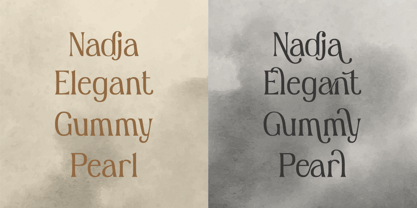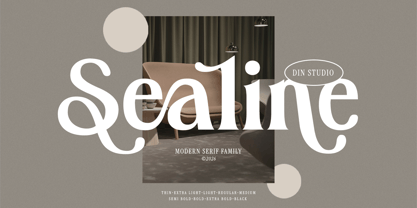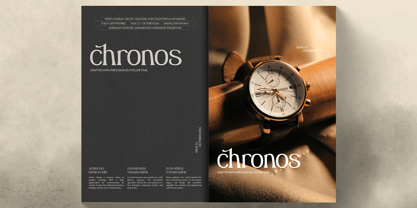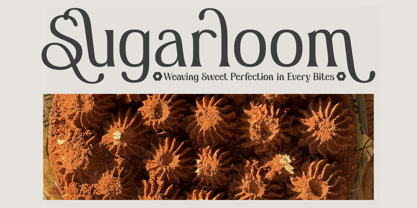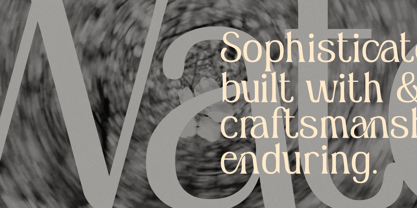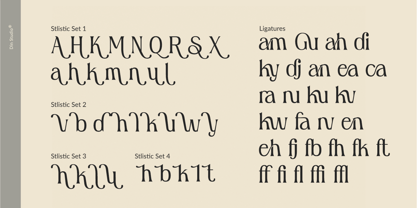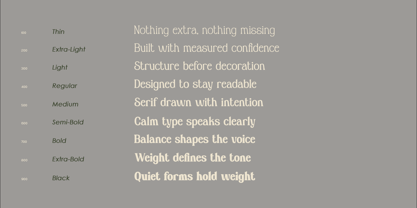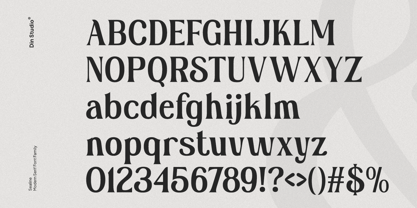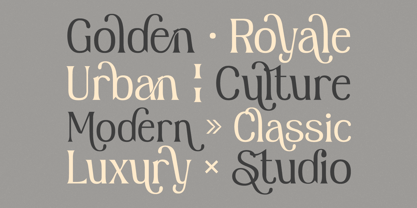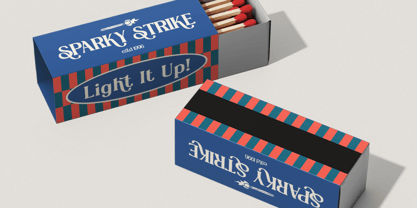
Sealine
Sealine is a modern serif font family that seamlessly blends contemporary sophistication with timeless typographic elegance. With its clean serif structure, balanced proportions, and modern character, Sealine is crafted to help designers create visually stunning and highly readable typography. One of the defining strengths of the Sealine font family is its comprehensive collection of 9 different weights. From Thin and Extra Light to Bold and Black, providing exceptional flexibility for creating strong visual hierarchies and cohesive brand identities. In addition, enjoy the features here.
Features:
• Ligatures
• Stylistic Sets
• Multilingual Supports
• PUA Encoded
• Numerals and Punctuations
Sealine fits in logos, quotes, name cards, branding, posters, and many more designs. Find out more ways to use this font by taking a look at the font preview.